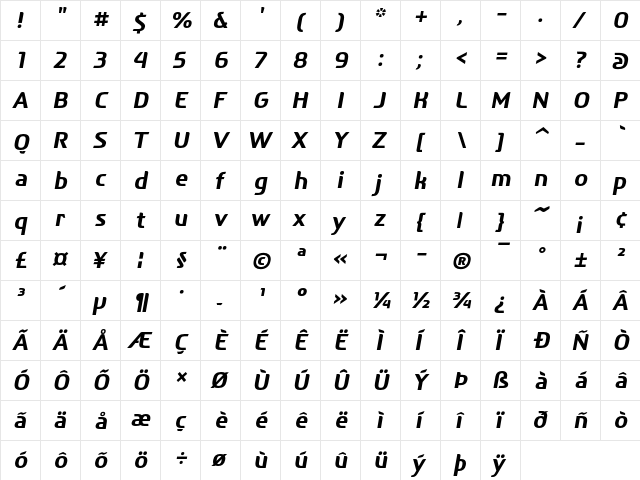
After Text Bold Italic
| Designer | Fabio Luiz Haag |
Design Context for After Text Typeface
After Text offers clean, dependable letterforms without strong stylistic allegiance, making it a practical choice for designers who need flexibility. Its italic angle brings a sense of urgency and motion to the letterforms. Its bold stroke weight gives it real presence on the page.
Pro Tip: Use After Text for emphasis, pull quotes, and subheadings where its slanted energy can add rhythm to the layout.